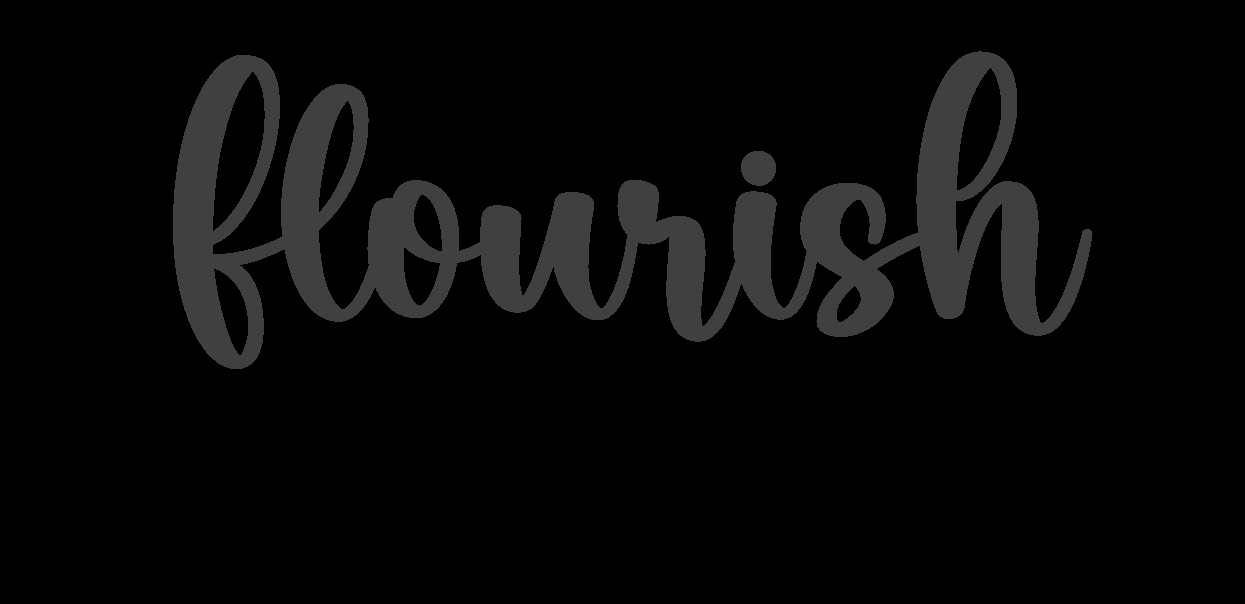
Flourish
Flourish is a distinct and graceful script font. Fall for its ravishing style and use it to create gorgeous designs. This font is PUA encoded which means you can access all glyphs and swashes with ease!
Nice font, but don't be fooled by the preview image. It does not have the flourishes at the beginning and end of the word, or under the "r".
By Graphix Line Studio